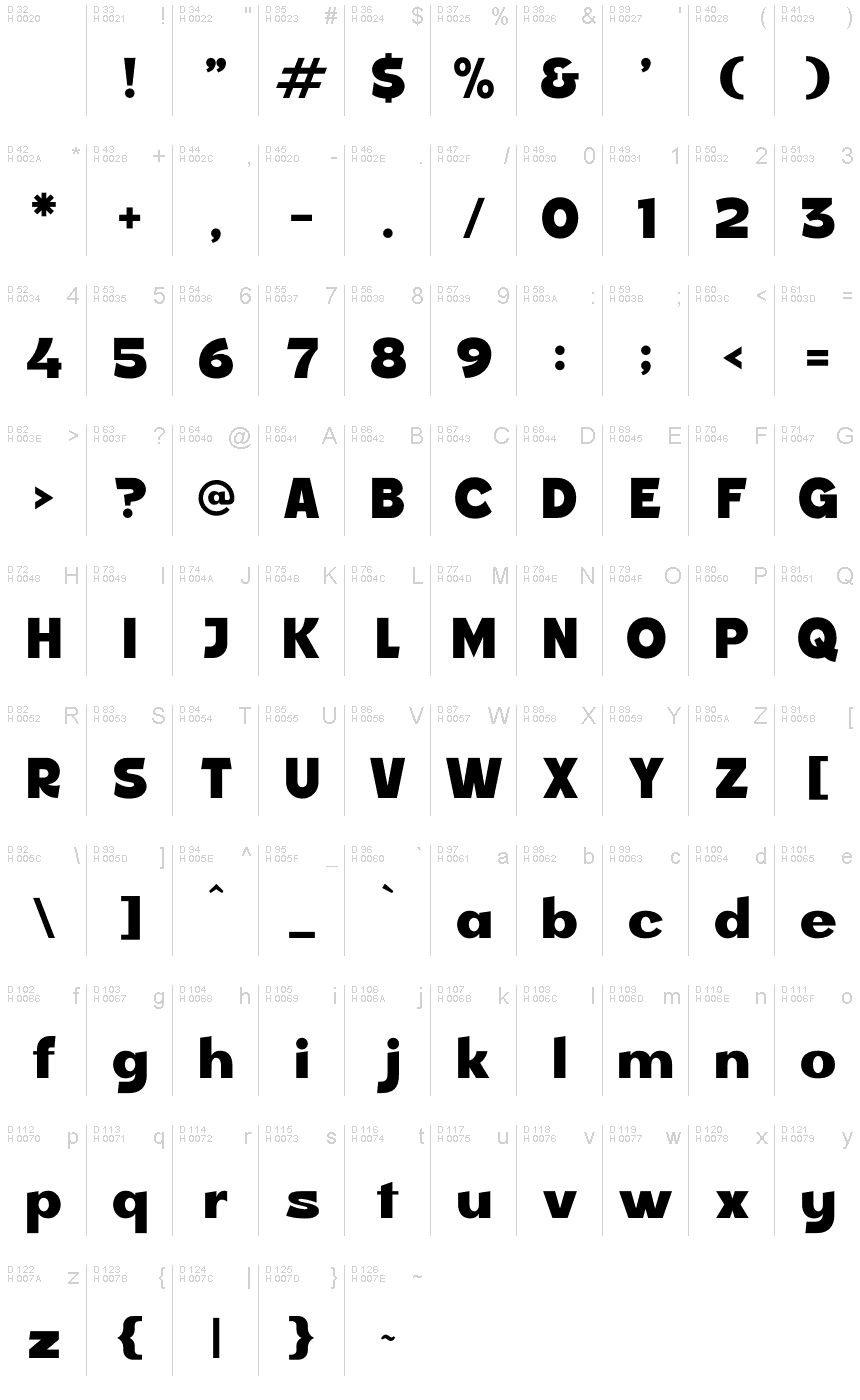
Rosela
Rosela Typeface emerges from the creative vault of Storytype Studio as a distinctive and versatile display font with a comic flair. Bold and semi-expanded, Rosela's character radiates with a modern classic silhouette that marries elegance to whimsy. This typeface boasts an individuality that makes it ideal for an array of design applications-from the sophistication of luxury brand logos to the playful charm needed in book titles or movie posters.
Fashioned for impact, Rosela adds a touch of class to magazine headers and is equally at home in high-end fashion branding or casual clothing lines. Its balanced blend of contemporary vibes with timeless serifs lends itself effortlessly to lettering projects, quotes, and any creative endeavor looking for that special typographic touch. Dive into the unique style and modern look of Rosela Typeface for your next project and let its distinct personality elevate your design narrative.